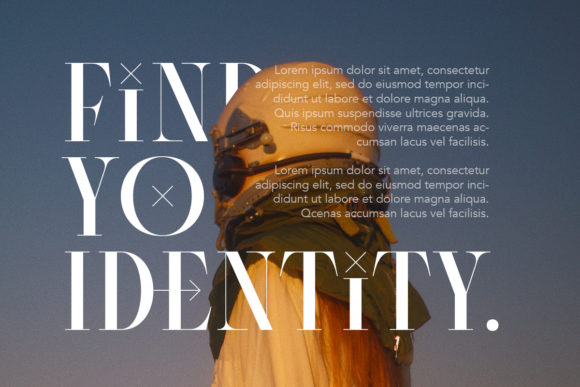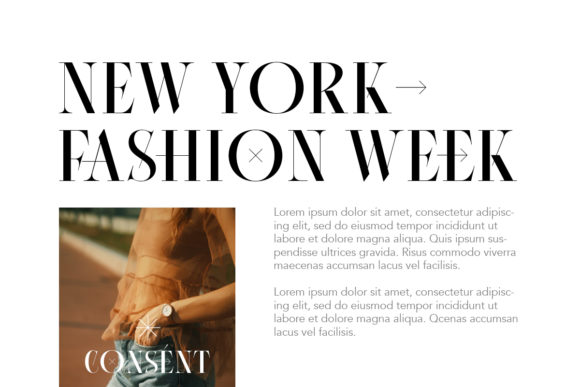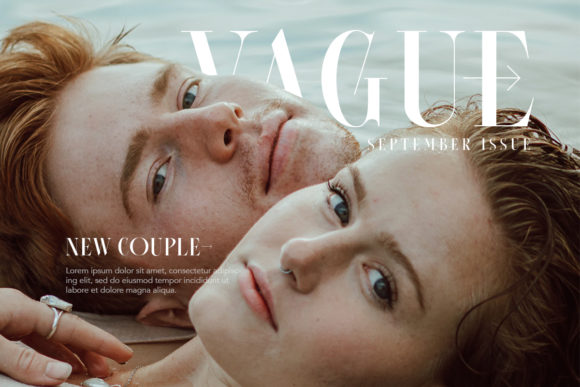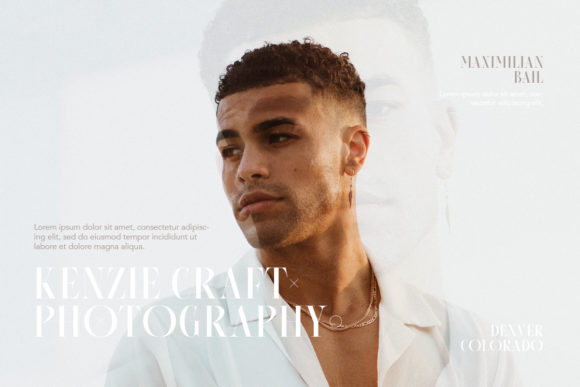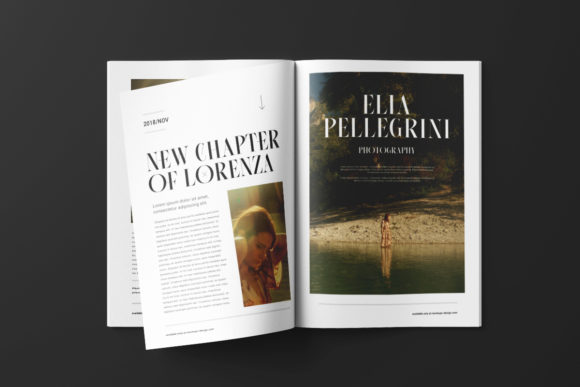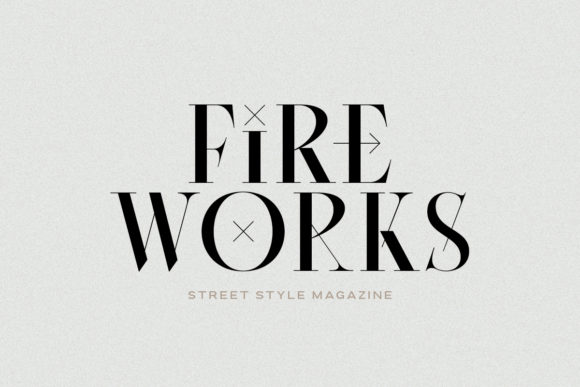
Introducing Consent Font: Elevate Your Designs with Elegance and Uniqueness
In the world of typography, a font can make or break a design. It’s the foundation upon which the aesthetic and tone of a project are built. For designers and crafters seeking to add a touch of elegance and uniqueness to their work, the Consent Font is an exceptional choice. This editorial serif font, with its distinctive lowercase letters and special features, is poised to make your projects stand out from the crowd.
What Makes Consent Font Special?
Consent Font is not just another serif font; it’s a carefully crafted typeface designed to bring a level of sophistication and refinement to your designs. Here are a few key features that set it apart:
- Unique Lowercase Letters: The lowercase letters in Consent Font are designed with a unique flair, offering a distinctive look that can add character to any text.
- Editorial Serif: As an editorial serif font, Consent is tailored for use in high-end publications, magazines, and editorial content where typography plays a crucial role in storytelling.
- Special Features: Consent Font comes with special features that allow for creative freedom and flexibility. These features can enhance your design, making it more engaging and visually appealing.
Use Cases for Consent Font
The versatility of Consent Font makes it suitable for a wide range of projects. Here are some ideal use cases:
- Web Designs: For web designers looking to create a memorable first impression, Consent Font can add a touch of elegance to website headers, titles, and key messaging.
- Business Cards: Stand out in a stack of business cards with a unique and professional font that speaks to your brand’s personality.
- Publications and Magazines: Given its editorial serif nature, Consent Font is perfect for articles, magazine titles, and any form of published material aiming for a high-end look.
- Branding and Logotypes: The unique characteristics of Consent Font make it an excellent choice for logotypes and branding elements that require a distinctive touch.
Why Choose Consent Font?
In a sea of fonts, why should designers and crafters choose Consent Font for their projects? Here are a few compelling reasons:
- Elegance: Consent Font brings an air of elegance and sophistication to any design, making it perfect for projects where a high-end look is desired.
- Uniqueness: With its unique lowercase letters and special features, Consent Font ensures your project stands out from the crowd.
- Versatility: Whether it’s for digital use or print, Consent Font adapts well to various mediums, making it a versatile choice for designers.
How to Use Consent Font Effectively
To make the most out of Consent Font, consider the following tips:
- Pair with Complementary Fonts: For body text, pair Consent Font with a clean sans-serif font to create contrast and enhance readability.
- Adjust Font Sizes: Use varying font sizes to create a hierarchy of information, making your design more engaging and easier to navigate.
- Experiment with Colors: While Consent Font shines in darker colors, don’t be afraid to experiment with different colors to match your brand’s palette.
Consent Font is more than just a typeface; it’s a design statement. With its unique lowercase letters, special features, and editorial serif elegance, it’s the perfect addition to any designer’s toolkit. Whether you’re crafting a stunning website, a memorable business card, or a high-end publication, Consent Font can elevate your project to new heights of sophistication and style.
So, if you’re looking to add a touch of elegance and uniqueness to your designs, look no further than Consent Font. Explore its features, experiment with its possibilities, and discover how it can make your projects truly stand out.